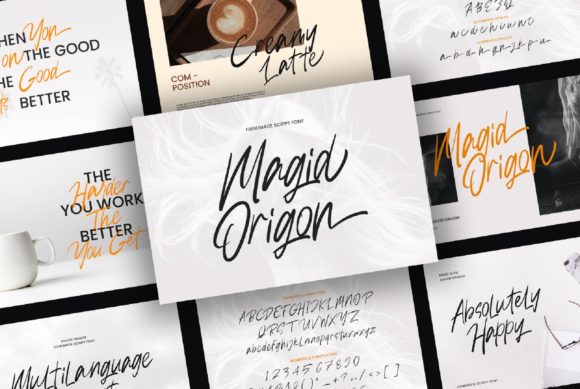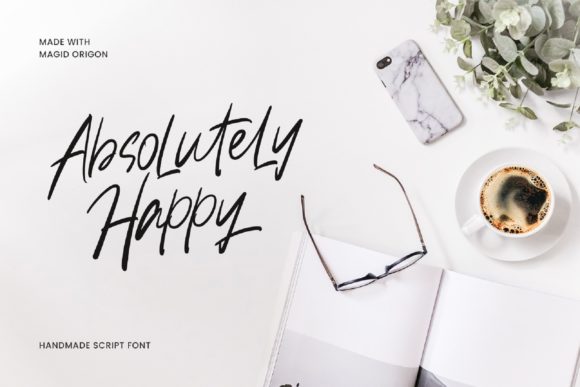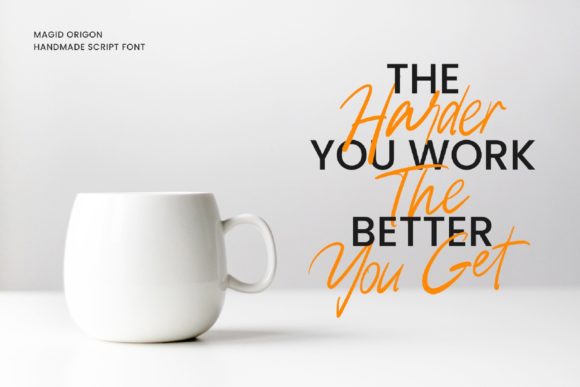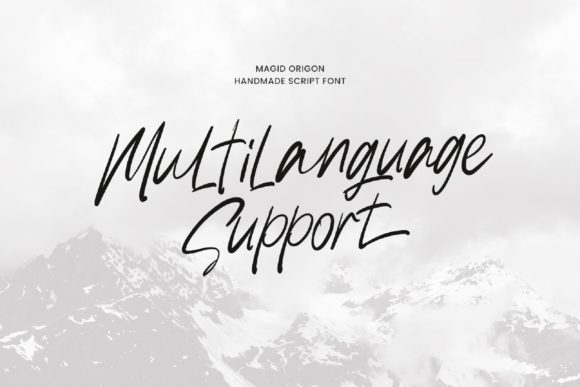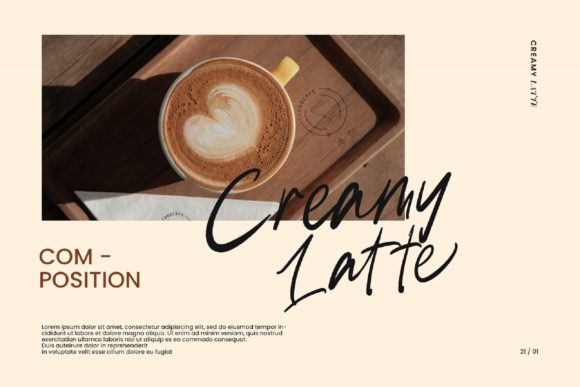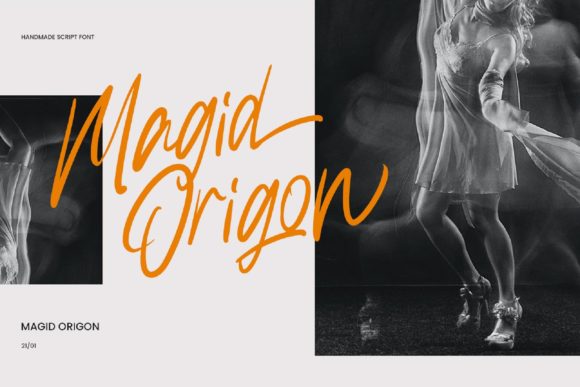
Introduction to Magid Origon Font
Magid Origon is a relaxed script font.
featuring a delicate flow It has a clean, thin and smooth vibe and it will be a hit for any design that you want to add it to.
Key Features of Magid Origon Font
Why Choose Magid Origon Font?
Magid Origon Font offers exceptional quality and versatility, making it a valuable addition to your design toolkit. Whether you’re creating for personal projects or commercial use, Magid Origon Font delivers professional results.